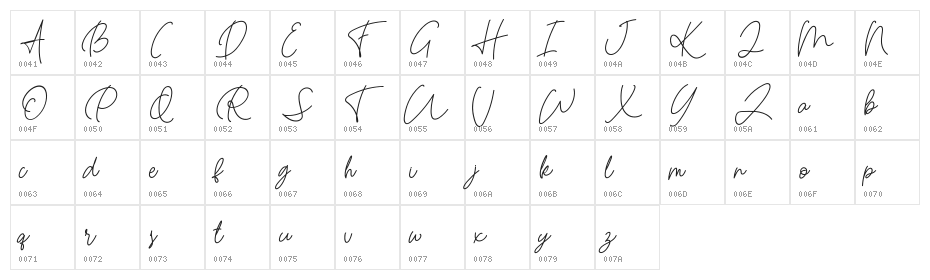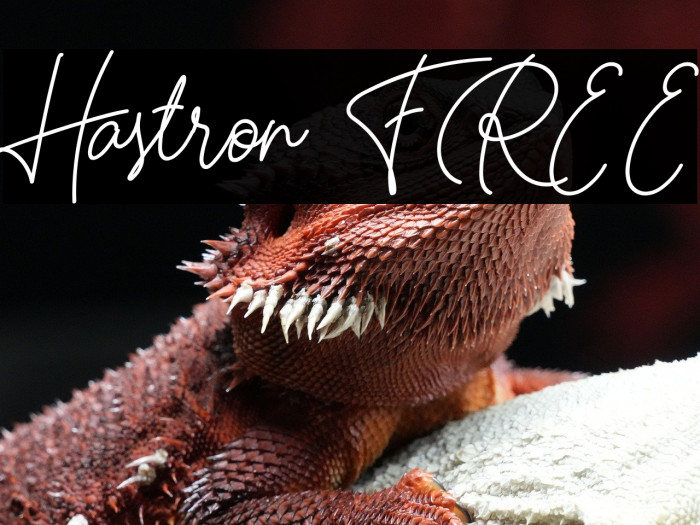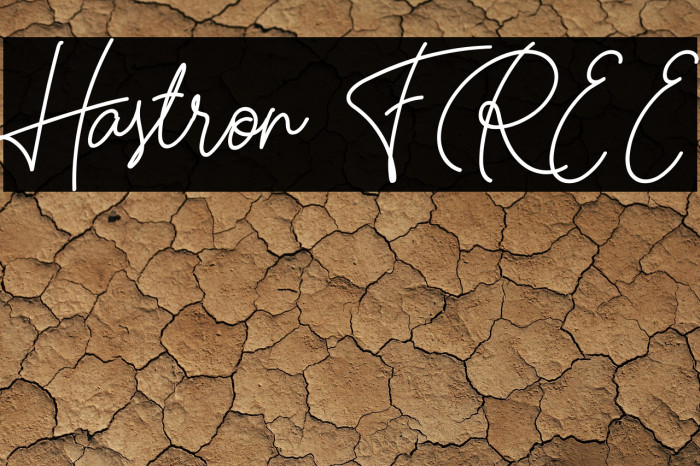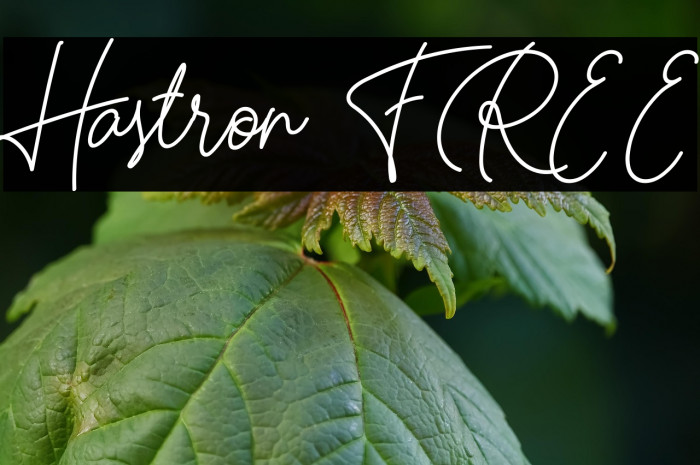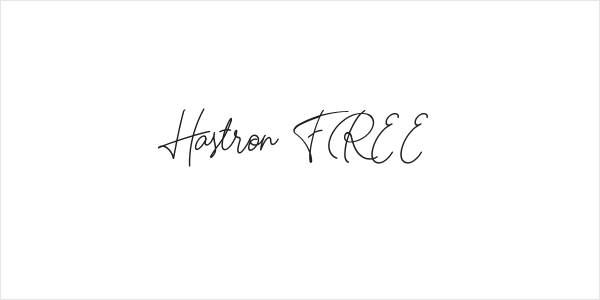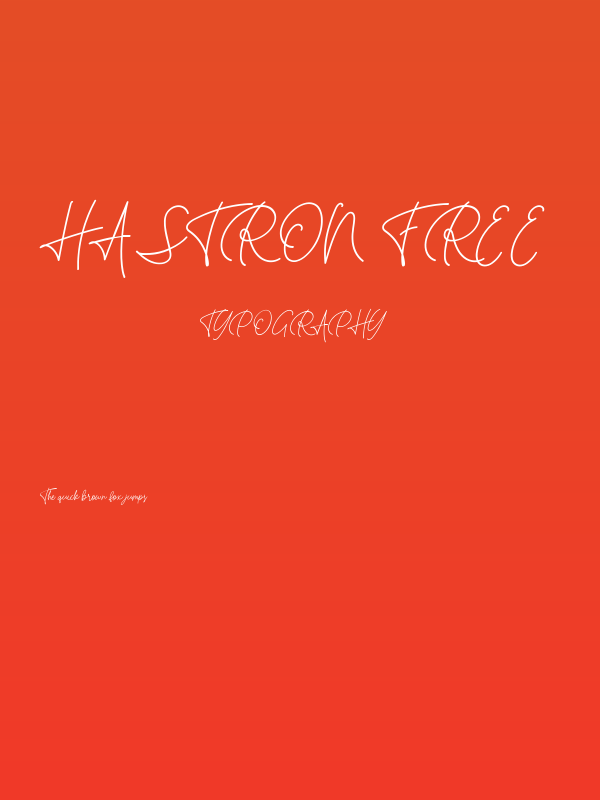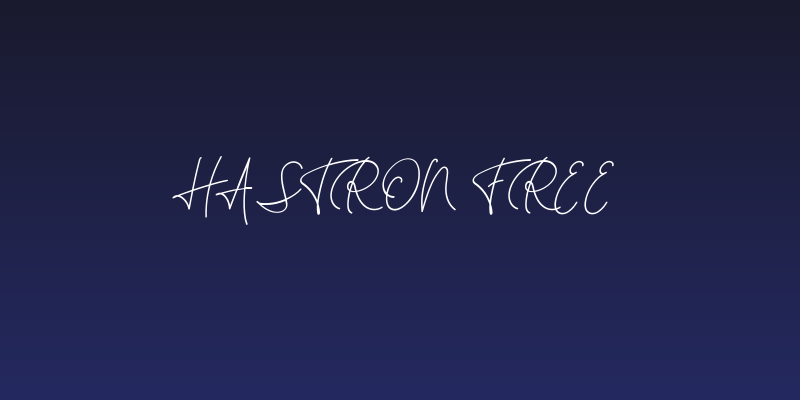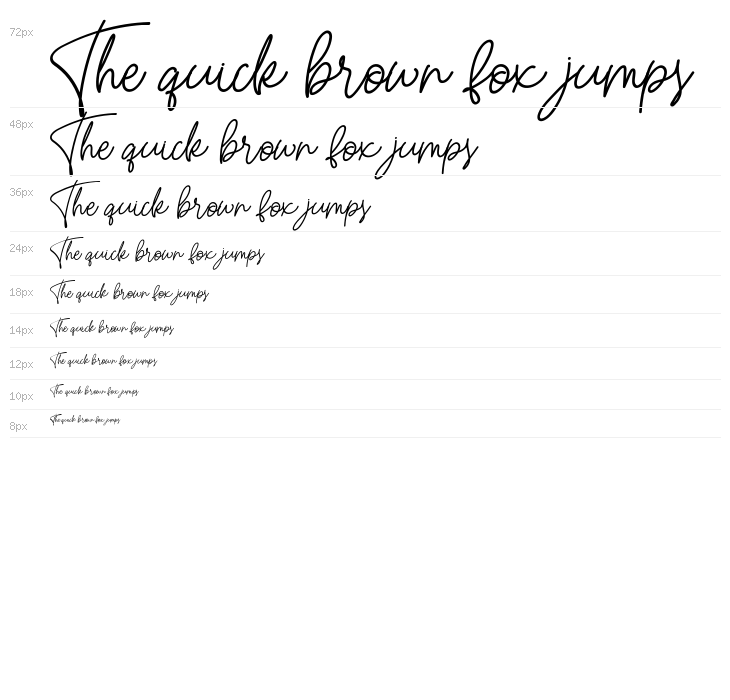
Hastron FREE Font
Hastron FREE Description
This font features a flowing, cursive style that mimics elegant handwriting. The uppercase and lowercase letters are designed with smooth, continuous strokes that create a sense of fluidity and movement. The characters are slightly slanted, adding to the handwritten feel. The font maintains a consistent line thickness, giving it a balanced and harmonious appearance. The spacing between characters is moderate, ensuring readability while preserving the script's aesthetic. This font is ideal for projects that require a personal touch, such as invitations, greeting cards, and branding materials.
| Overall Style | Elegant, Handwritten |
| Proposed Projects | Ideal for invitations, greeting cards, branding, and personal projects. |